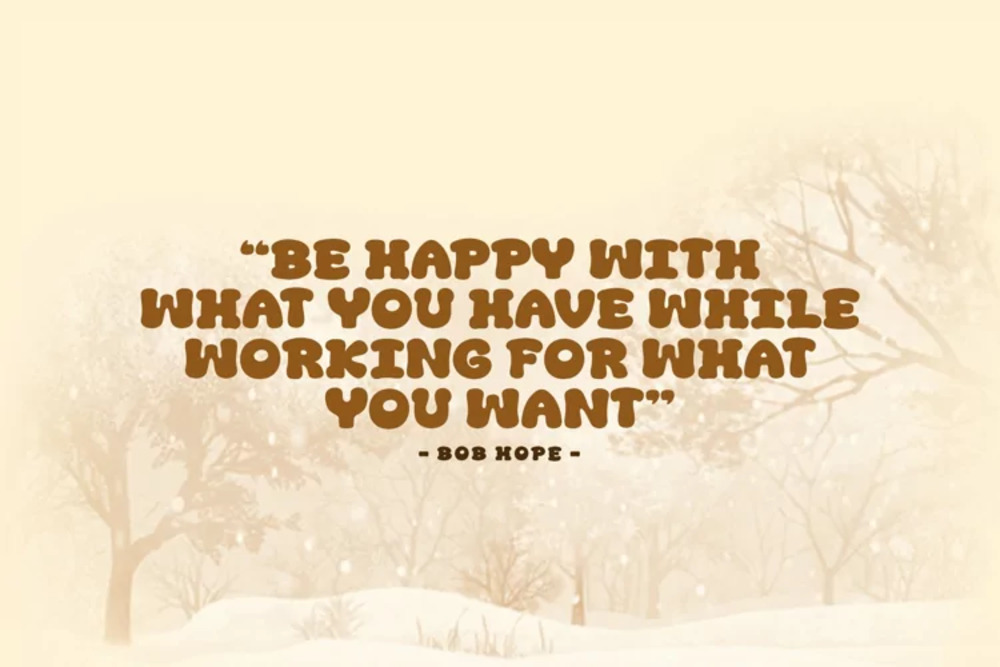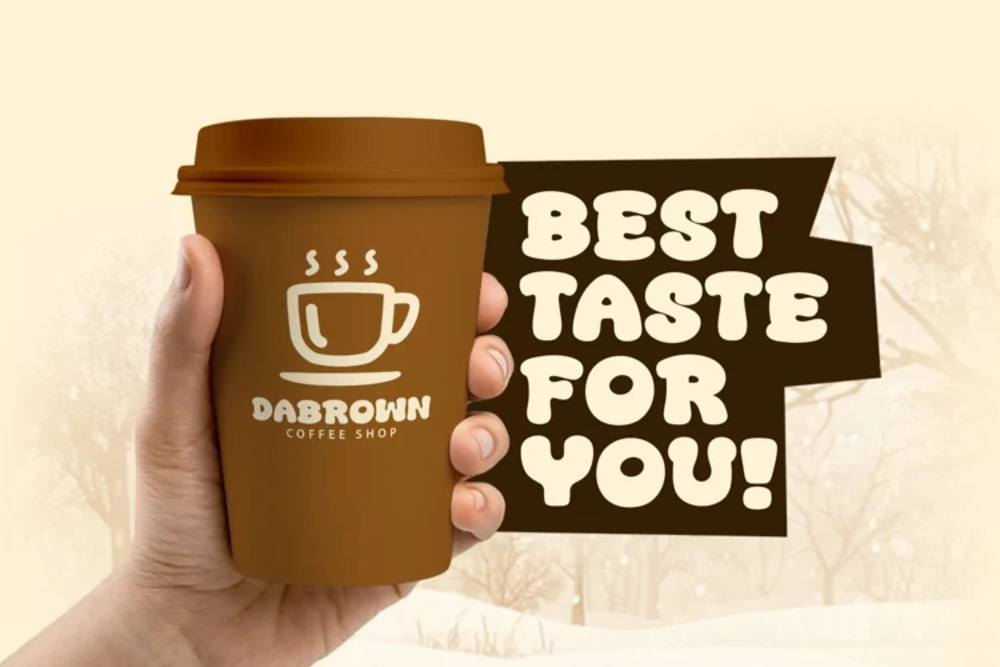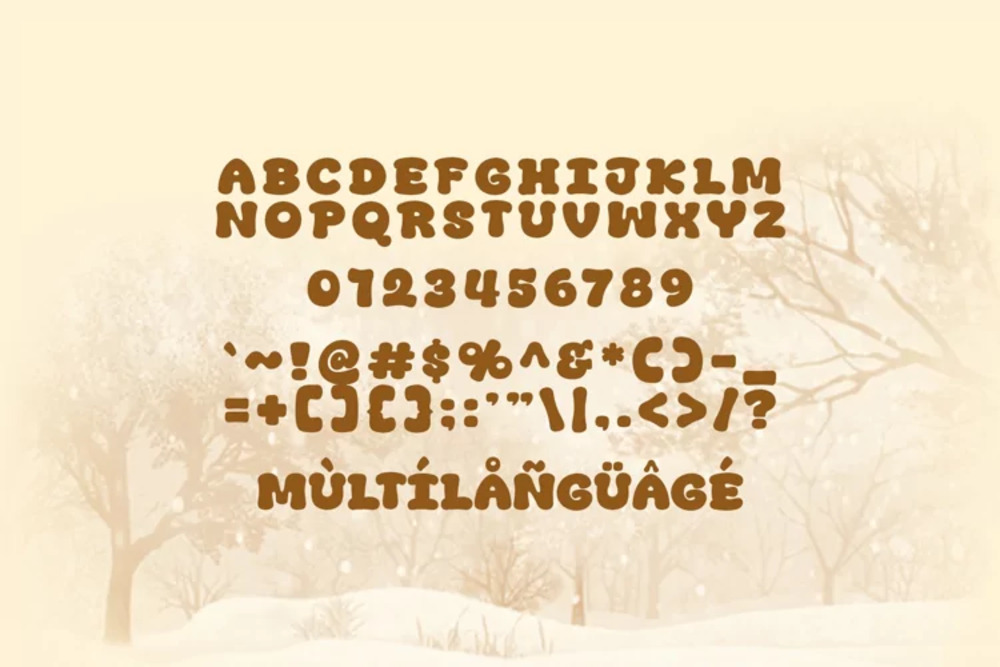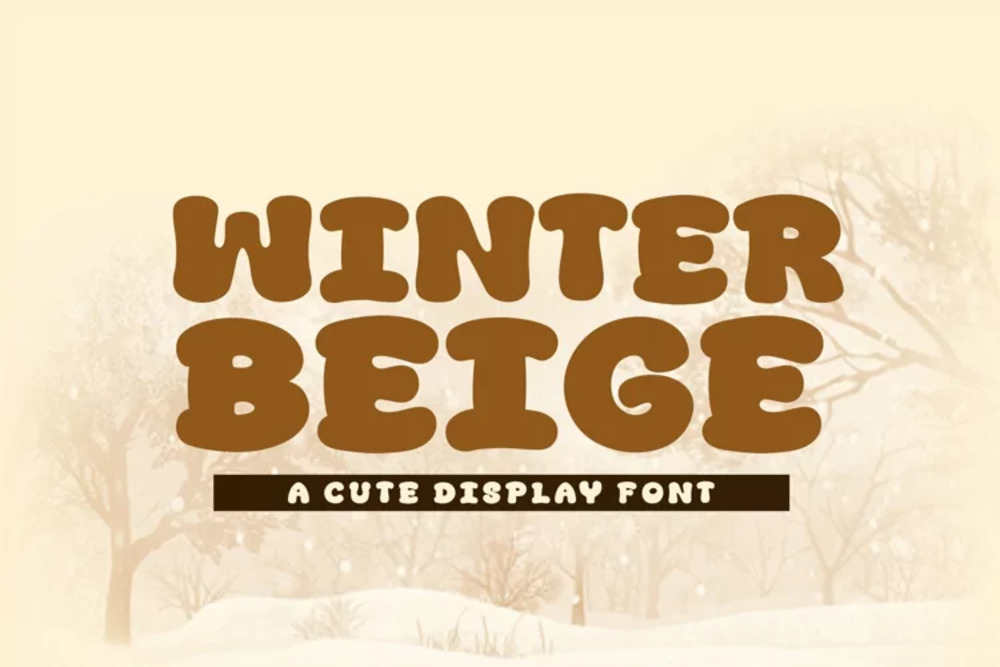
Winter Beige Font
Winter Beige is a chic, modern serif font with a soft, sophisticated charm. Its elegant curves and refined serifs create a delicate yet bold aesthetic, perfect for branding, fashion editorials, and upscale packaging. With a balance of classic and contemporary elements, Winter Beige exudes warmth and luxury, making it an ideal choice for stylish, high-end designs.